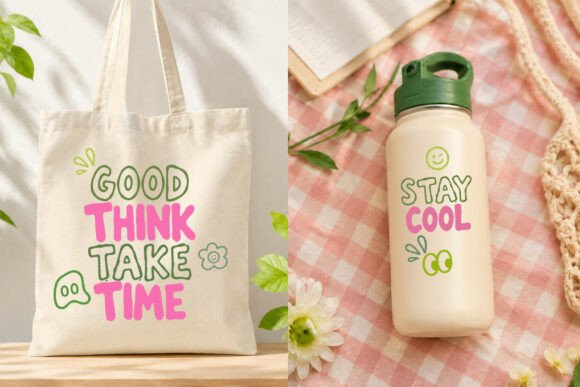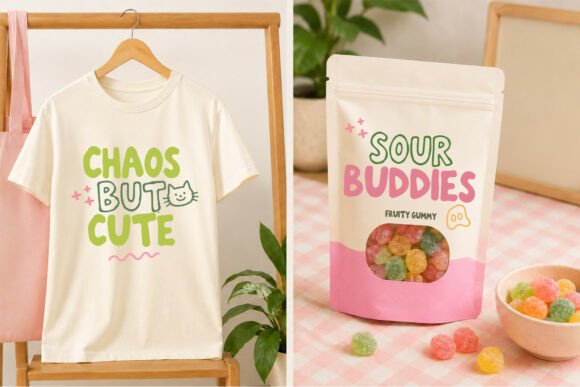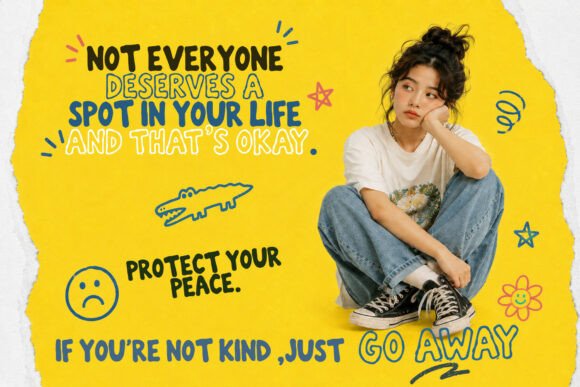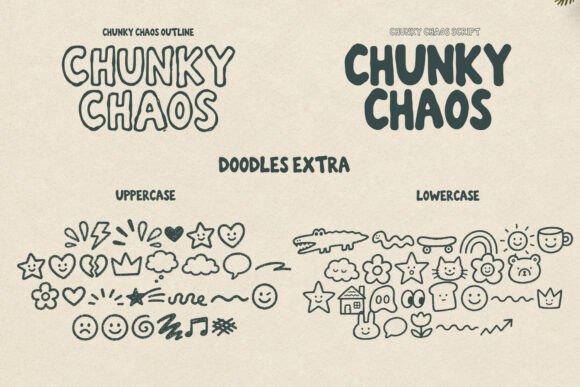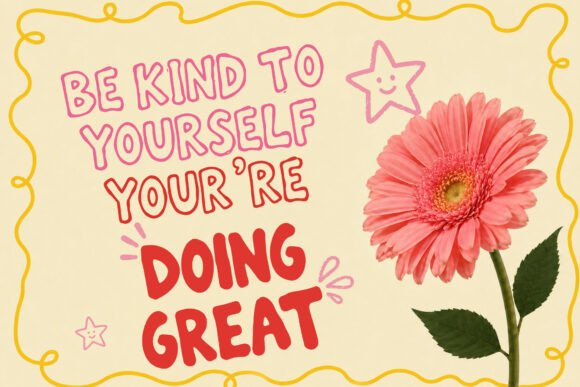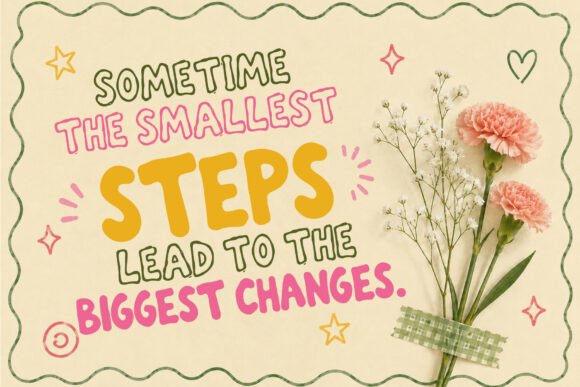
Introduction to Chunky Chaos Font
Introducing Chunky Chaos – the charismatic and delightful handwritten font duo certain to inject vibrancy and inventiveness into any design endeavor.
This playful font duo sports bold, rotund characters, a shadow companion font, and an enchanting array of hand-sketched additional doodles Chunky Chaos empowers designers to craft designs that exude joy and immediately magnetize attention.
Key Features of Chunky Chaos Font